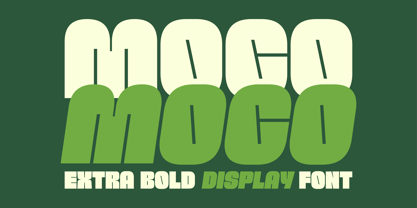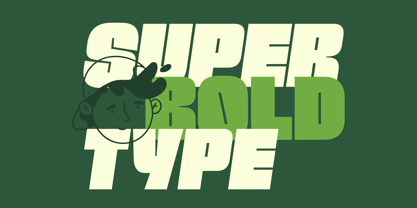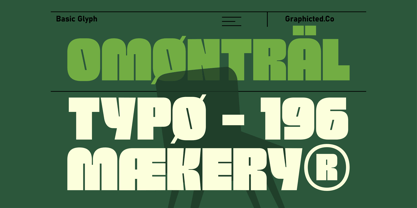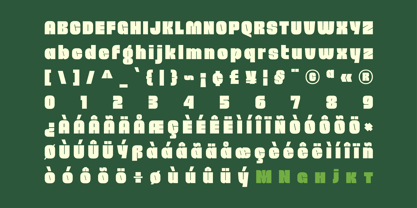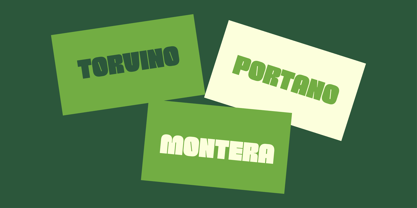
The Moco Font Family was designed by Baliya Ibnu Bi Malkan and published by Glyphminds Studios. Moco contains 2 styles and family package options. More about this family
Introducing Moco, an extra bold display font designed to make your words stand out with strength and personality. Moco brings a modern-retro charm that blends smooth rounded edges with solid geometric shapes. Perfect for logos, posters, headlines, packaging, and branding, Moco delivers a confident, stylish tone that captures attention instantly. Whether you’re creating a fun visual identity or a striking title design, Moco gives your project boldness, balance, and character.
Moco